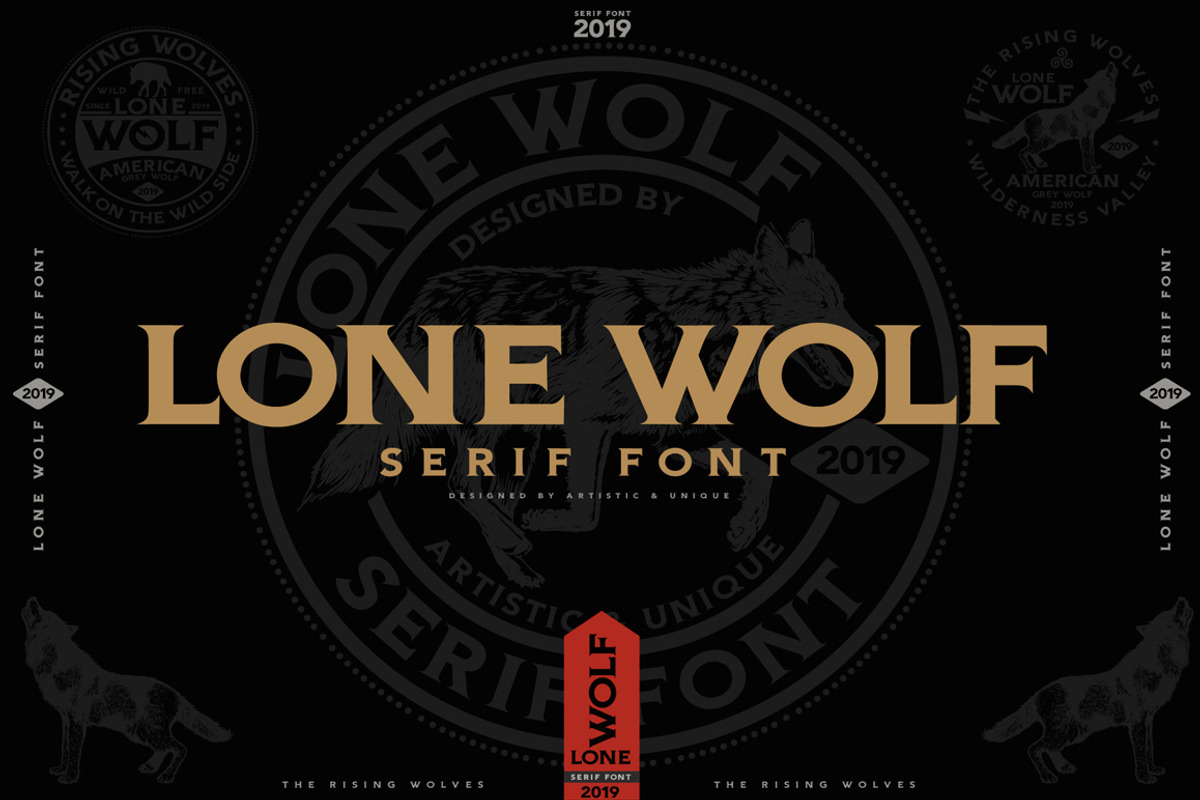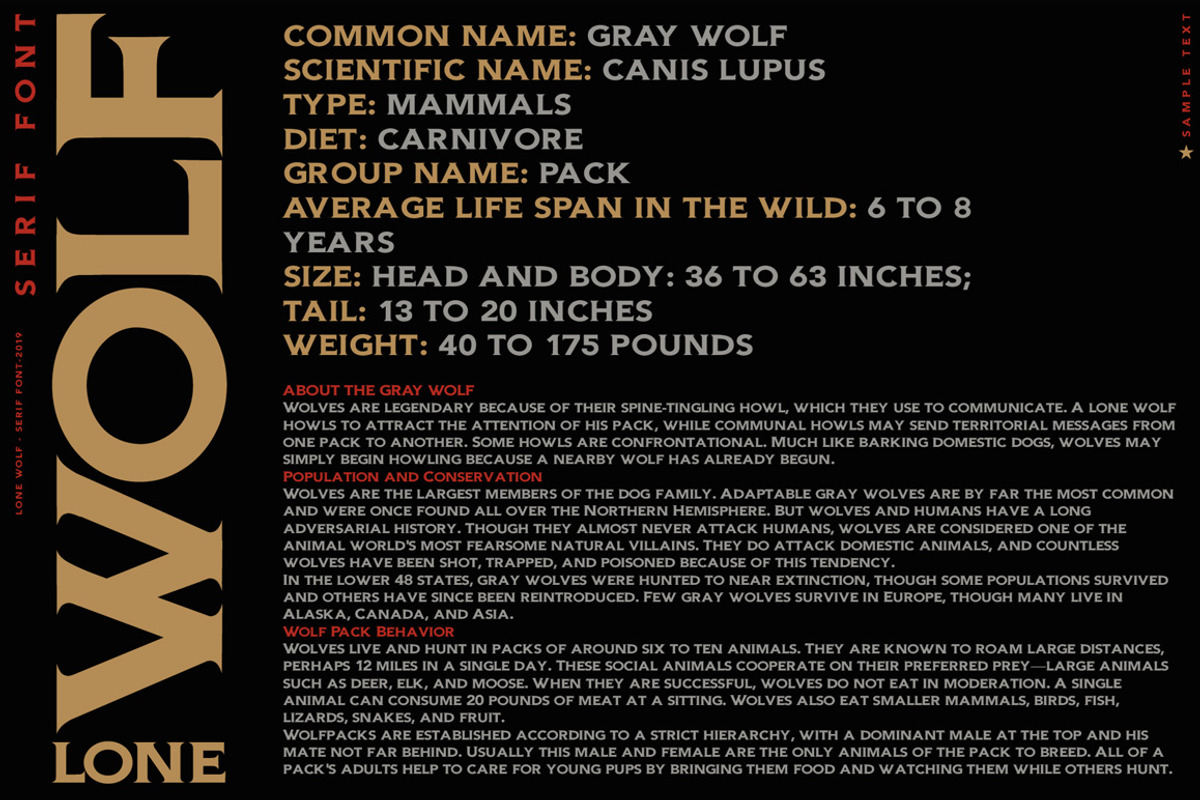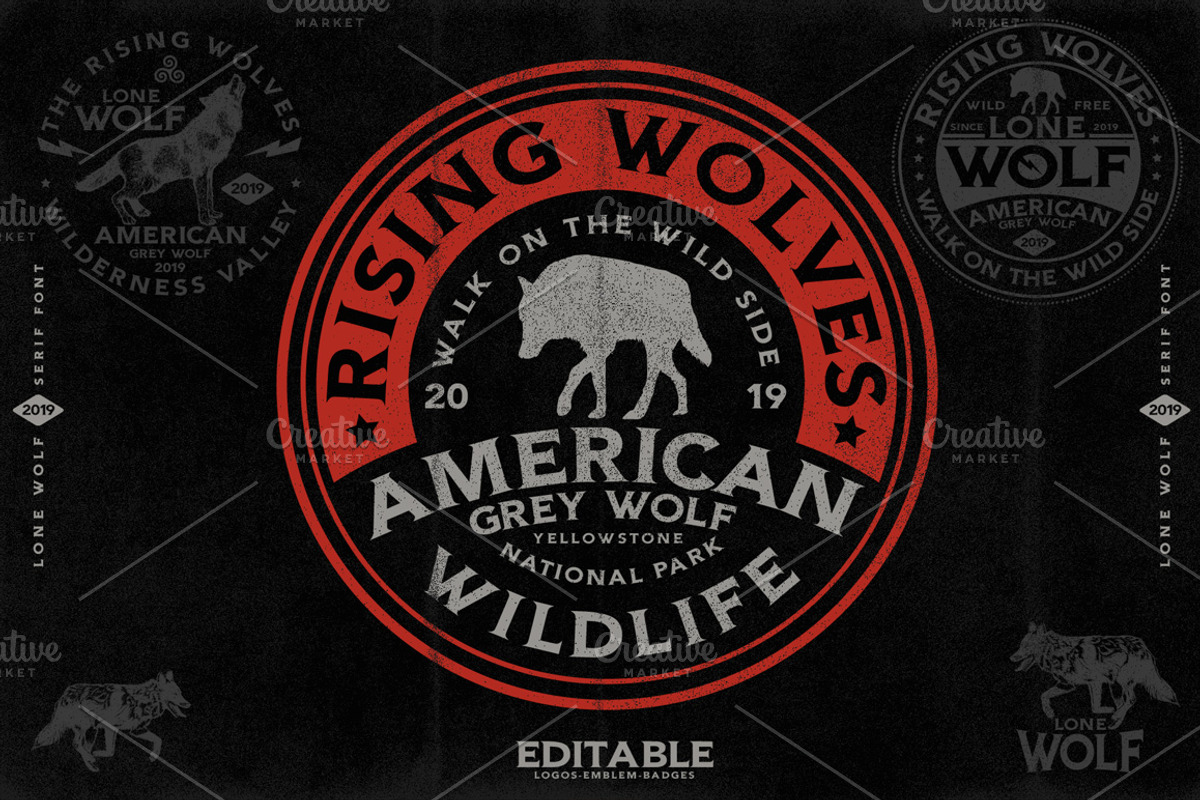
LONE WOLF - Serif font
LONE WOLF Serif font.
INTRODUCING This font was designed with inspiration from the wild nature and the wolves that are part of it. Thickness in the font strength, pointed corners represent wildlife. This definition is part of the wild wolves and wild nature I love. That's why I named the font the LONE WOLF.
With this font you can create your unique designs.
- uppercase typeface
- lowercase typeface
- numbers
- symbols
Why LONE WOLF - Serif font is worth a look
LONE WOLF - Serif font by Artistic & Unique fits naturally into Branding, posters, packaging, typography.